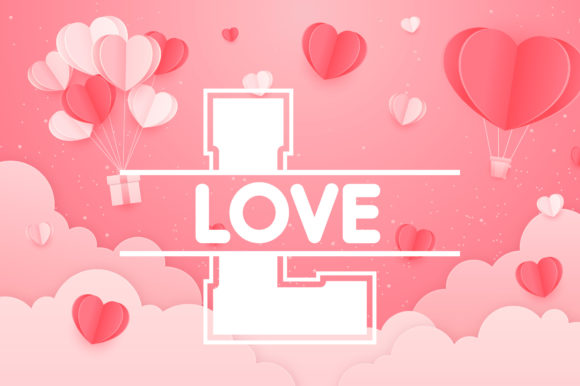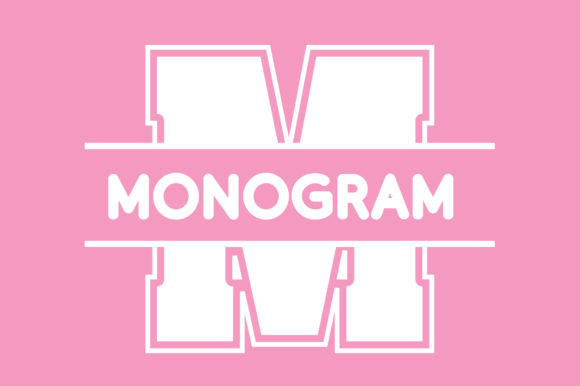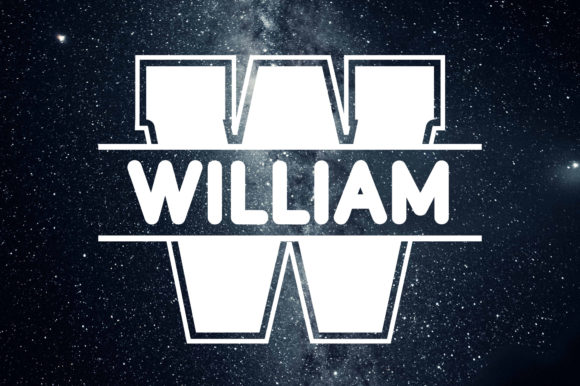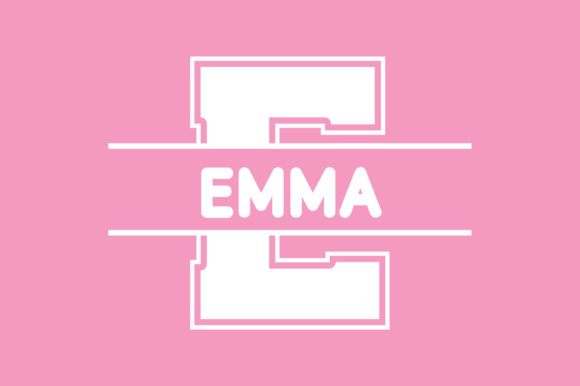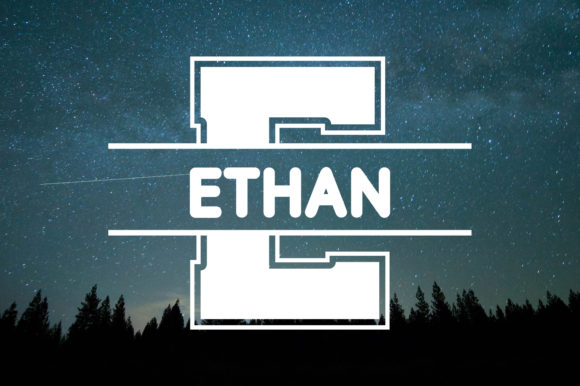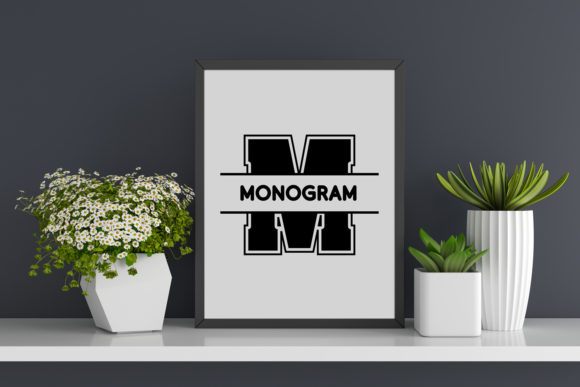
Introducing College Sport Font: The Ultimate Choice for Sporting and Racing Designs
Are you a designer or crafter looking for a font that screams energy, excitement, and competition? Look no further than College Sport Font! This bold and thick lettered decorative font is specifically designed to capture the spirit of sports and racing, making it the perfect addition to your design arsenal.
What Makes College Sport Font So Special?
College Sport Font is more than just a font – it’s an experience. Its bold and thick lettering gives it a rugged, high-energy feel that’s perfect for designs that need to pack a punch. Whether you’re creating a logo for a sports team, designing a racing-themed poster, or crafting a bold statement piece, College Sport Font is the perfect choice.
Endless Variations at Your Fingertips
One of the best things about College Sport Font is its incredible versatility. With a wide range of variations to explore, you can create unique and eye-catching designs that showcase your creativity. From subtle tweaks to dramatic overhauls, the possibilities are endless with College Sport Font. So don’t be afraid to experiment and push the boundaries of what’s possible!
Perfect for Sporting and Racing Designs
College Sport Font is specifically designed with sporting and racing designs in mind. Its bold and thick lettering gives it a dynamic, high-energy feel that’s perfect for capturing the excitement and competition of these themes. Whether you’re designing a logo, poster, or social media graphic, College Sport Font is the perfect choice for creating eye-catching and engaging designs.
Why Choose College Sport Font?
So why choose College Sport Font over other fonts? Here are just a few reasons why designers and crafters love this amazing font:
- Bold and eye-catching: College Sport Font is designed to grab attention and make a statement. Its bold and thick lettering ensures that your designs will stand out from the crowd.
- High-energy feel: The rugged, dynamic feel of College Sport Font is perfect for capturing the excitement and competition of sporting and racing themes.
- Incredibly versatile: With a wide range of variations to explore, College Sport Font can be used to create a wide range of designs, from subtle and sophisticated to bold and dramatic.
- Easy to use: College Sport Font is incredibly easy to use, making it perfect for designers and crafters of all skill levels.
Get Creative with College Sport Font
Tips and Tricks for Using College Sport Font
Here are a few tips and tricks to help you get the most out of College Sport Font:
- Experiment with different colors: College Sport Font looks amazing in bold, bright colors. Try experimenting with different color schemes to find the perfect look for your design.
- Play with texture and patterns: Adding texture and patterns to your design can add depth and interest. Try combining College Sport Font with different textures and patterns to create a unique look.
- Use it in combination with other fonts: College Sport Font pairs well with a wide range of other fonts. Try combining it with a clean, simple font for a bold and eye-catching contrast.
In conclusion, College Sport Font is an amazing decorative font that’s perfect for sporting and racing designs. Its bold and thick lettering, high-energy feel, and incredible versatility make it a must-have for designers and crafters. So why wait? Download College Sport Font today and start creating your own unique and eye-catching designs!